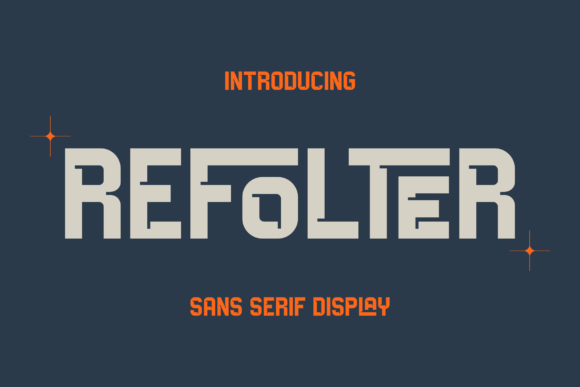
Behold, the Refolter Font - a font so mesmerizing that it will transform your designs into a visual masterpiece. This sans serif display font, crafted by the talented artisans at Storytype Studio, is the epitome of elegance and refinement. With its bold and luxurious strokes, Refolter is the perfect font to make your words stand out and leave an unforgettable impact.
Unleash the power of Refolter to craft logos that demand attention. Its striking presence will make your brand stand out from the crowd, captivating customers and leaving them craving more. Picture your brand name, elegantly displayed in Refolter, radiating sophistication and prestige. Whether you're creating logos for fashion brands, lifestyle companies, or sleek tech startups, Refolter is the key to unlocking a world of captivating designs.
Journey into the world of typography and discover the limitless possibilities of Refolter. Its versatile style seamlessly adapts to any creative vision, whether it's book or movie titles, magazine covers, or fashion labels. Imagine your words, adorned in the exquisite curves and sharp angles of Refolter, commanding attention and evoking emotions. Let Refolter be your creative companion as you weave tales, craft headlines, and design quotes that resonate with your audience.
With Refolter, your designs will transcend the ordinary and embrace the extraordinary. Its carefully crafted letterforms dance across the page, creating a visual symphony that captivates and inspires. Experience the joy of watching your words transform into works of art, ready to grace your marketing materials, social media posts, and website designs. Refolter is more than just a font; it's a gateway to a world where creativity knows no bounds.